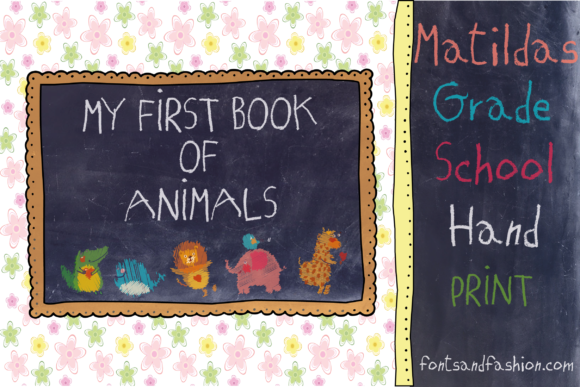
Matilda's Grade School Hand Print Font
db-ku.com - Script & Handwritten -- Matilda’s Grade School Hand print is a block letter font. It feels bubbly, funny, exuberant and playful and has an uneven and dusty look, typical of chalk.